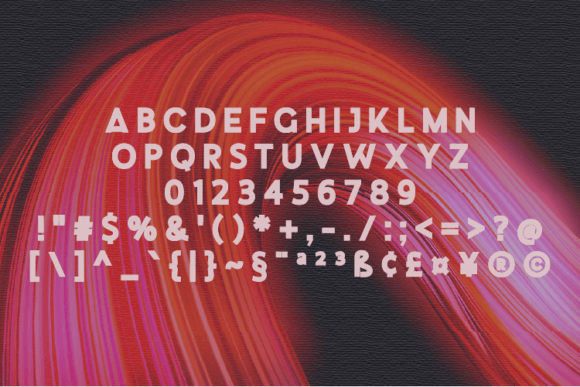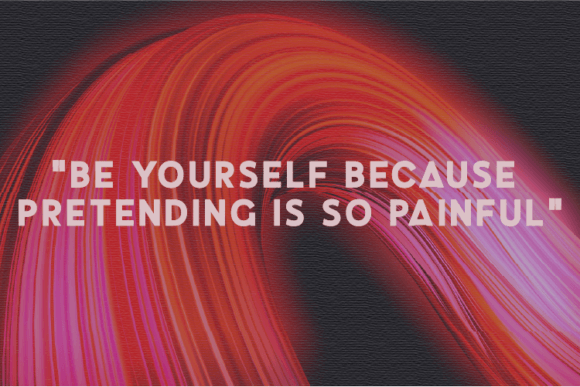
The Perfect Balance of Style and Functionality
Have you ever been working on a design project, pouring your heart and soul into every detail, and suddenly, the perfect font pops into your head? That’s exactly what happened when I stumbled upon the Aesthetic Font. Its sleek, all-caps sans serif design is nothing short of magic, effortlessly elevating any project it touches.
Aesthetic Font is a game-changer for designers, offering a versatile and adaptable solution for logos, branding, and web headings. Its smooth and clean lines, paired with a touch of contrast, create a harmonious balance that’s both visually appealing and easy to read. Whether you’re working on a personal project or a high-profile client, the Aesthetic Font is sure to make a lasting impression.
With its endless possibilities and effortless style, it’s no wonder the Aesthetic Font has become a go-to choice for designers seeking to add a touch of sophistication to their work. In this article, we’ll delve into the world of the Aesthetic Font, exploring its features, benefits, and how it can take your designs to the next level.
Aesthetic Font Key Features
- Font Family: Aesthetic Font is a unique, high-end font family consisting of multiple styles, including Thin, Light, Regular, Medium, Bold, and Black.
- Character Count: Each font style contains over 500 characters, including uppercase and lowercase letters, numerals, punctuation, and special symbols.
- Unique Characteristics: Features a distinctive, elegant design with subtle flair and flair terminals, making it ideal for creative, high-end applications.
Aesthetic Font Review
I’ve been experimenting with the Aesthetic Font, and here’s my honest take on it.
- The font’s unique blend of modern and elegant styles is a standout feature. It’s perfect for creating a sophisticated and eye-catching visual identity.
- The font’s high legibility makes it easy to read, even at smaller font sizes. This is a must-have for any font, in my opinion.
- The font family includes a wide range of weights and styles, making it versatile and adaptable to different design needs.
- The font’s bold weights can sometimes feel a bit too condensed, making it difficult to read at larger font sizes.
- The font’s italics can be a bit inconsistent in terms of slant and weight, which can affect the overall design.
- The font may not be the best choice for body text, as it can feel a bit too decorative and overwhelming.
Overall, the Aesthetic Font is a great addition to any designer’s toolkit. While it has some limitations, its unique style and high legibility make it a great choice for headings, titles, and other design elements where a touch of elegance is needed.
Tips for Getting the Most Out of Aesthetic Font
Use aesthetic font to add a touch of sophistication and elegance to your designs. Pair it with complementary colors and simple shapes to create a clean and minimalist aesthetic. Experiment with different font sizes and styles to add visual interest.
Aesthetic font is commonly used in:
– Wedding invitations and stationery
– Branding and logo design
– Social media graphics and ads
– Blog and website headers and footers